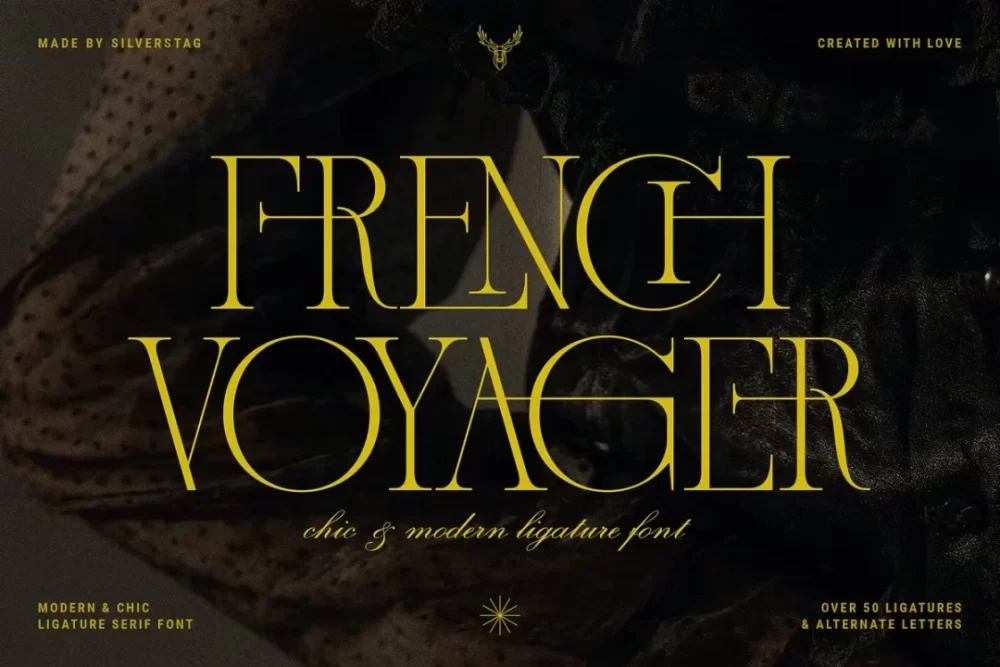
French Voyager is a vintage-inspired serif font with a touch of modern elegance. It’s perfect for adding a touch of nostalgia and sophistication to your designs. The font also includes full language support, punctuation, numerals and detailed instructions how to use ligatures in most of the apps on your computer, as well as in Canva.